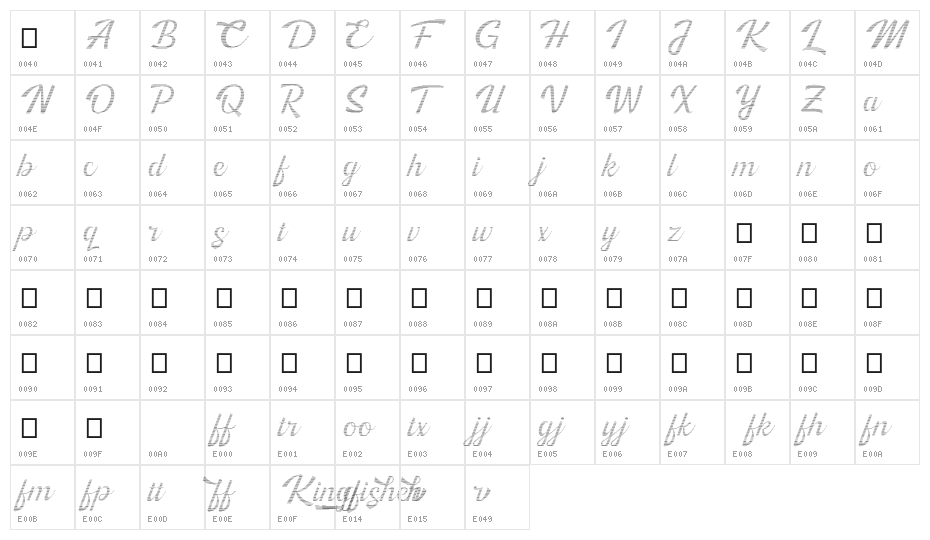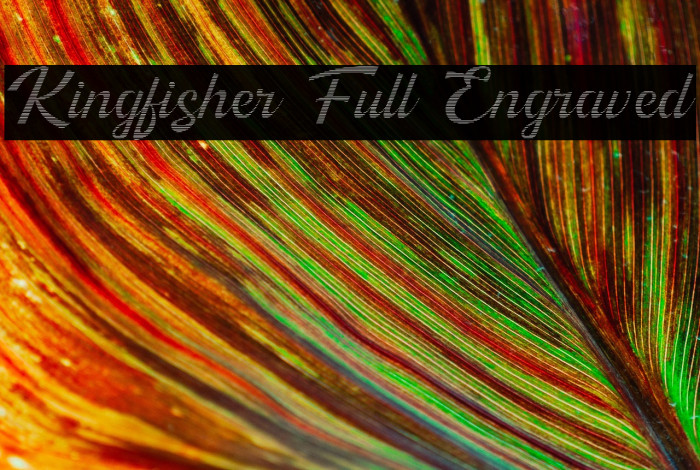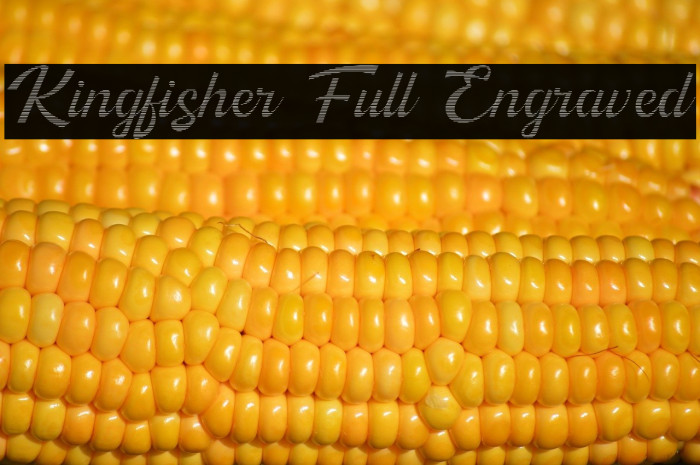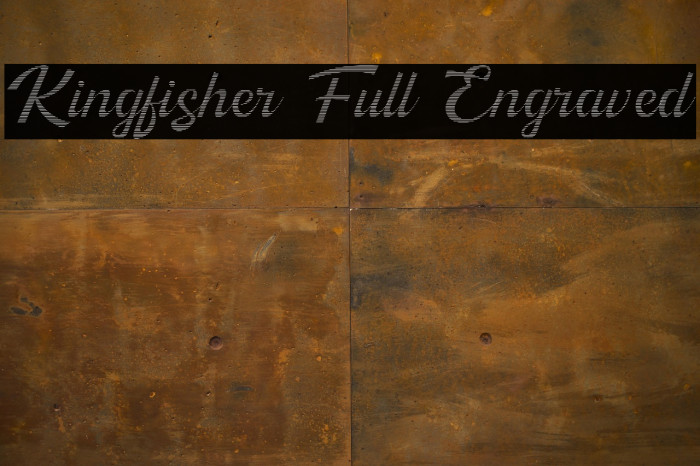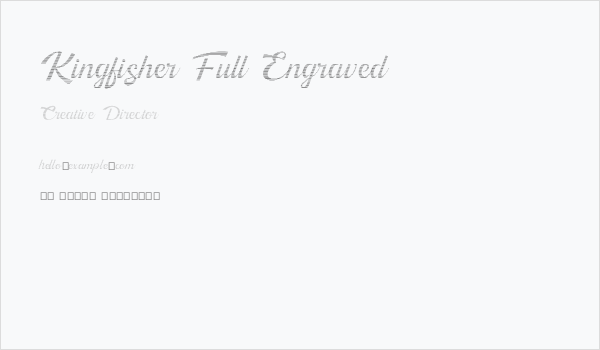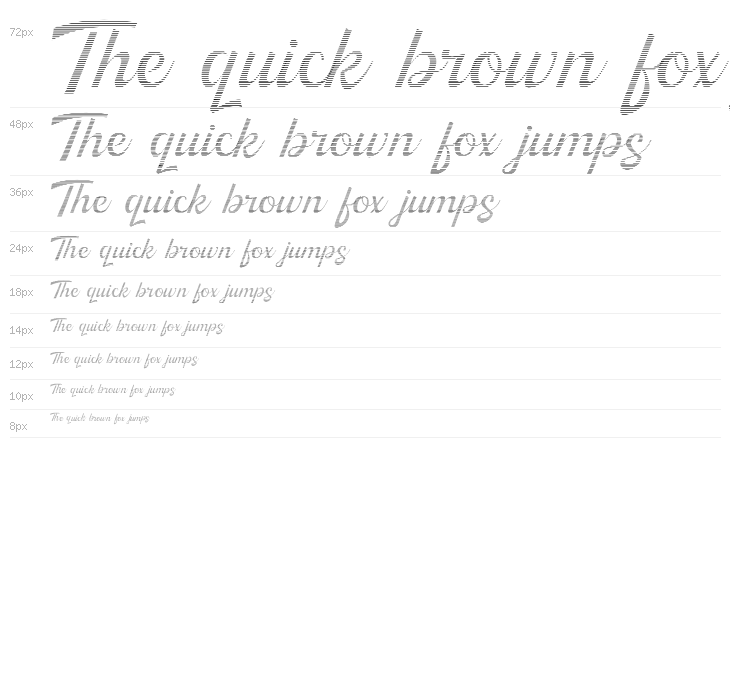
Kingfisher Full Engraved Font
Kingfisher Full Engraved Description
This font features an elegant script style with a distinctive engraved appearance, characterized by diagonal lines running through each character. The uppercase letters are bold and flowing, while the lowercase letters maintain a consistent cursive style, enhancing the font's sophisticated look. The absence of numerals and special characters suggests a focus on decorative text applications. The overall design is reminiscent of classic calligraphy, offering a refined and artistic touch suitable for formal invitations, branding, and decorative headings.
Overall StyleClassic, Decorative
Proposed ProjectsIdeal for wedding invitations, luxury branding, decorative headings, and artistic projects.